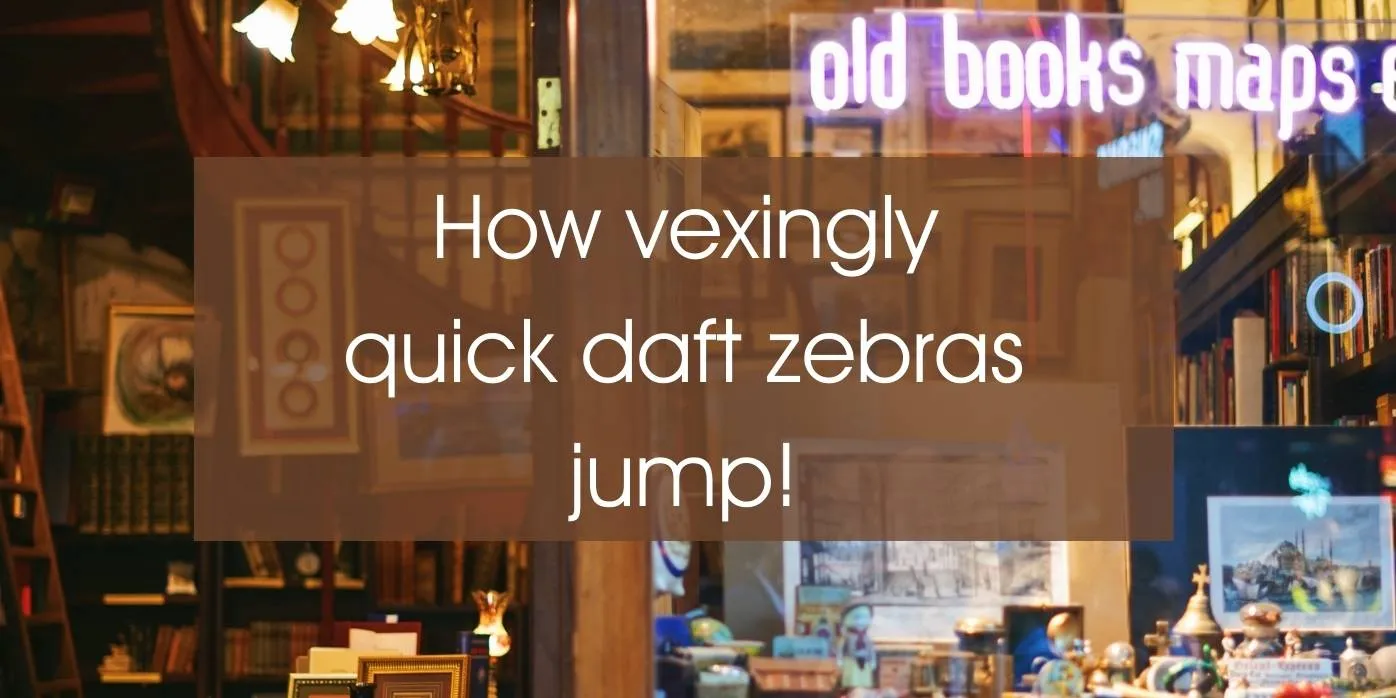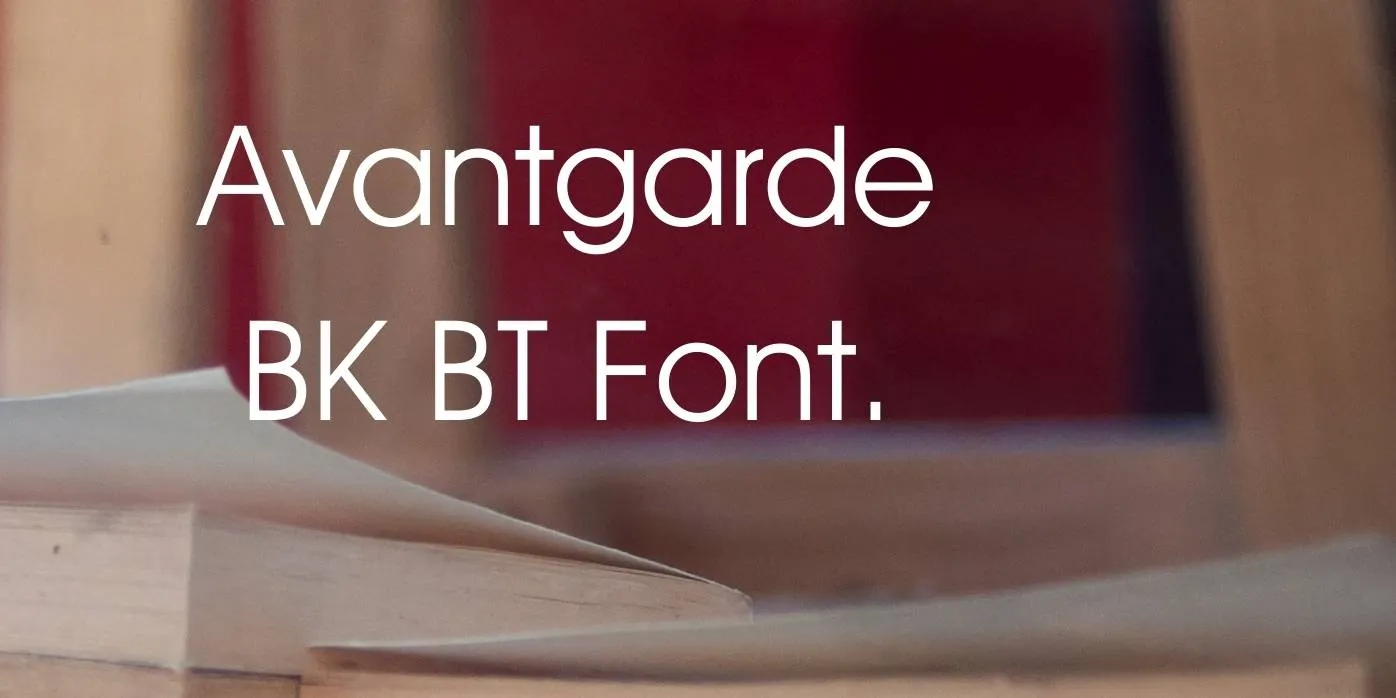
Avantgarde Bk BT Font
Today we are going to introduce Avantgarde Bk BT Font. This typeface belongs to the Sans Serif typeface. And it was created by Herb Lubalin and Tom Carnase in 1970. This classic font is a sans serif typeface with various weights and styles.
The font family includes Book, Medium, Demi, Bold, and Extra Bold. There are also oblique versions of each style. The font was designed for display and headlines, so it is perfect for large text. The letters have a strong emphasis on the vertical lines, which gives them a modern look.
This typeface has clean textures and shapes. The Avantgarde typeface is still very popular today. It is used by many designers all over the world. Its tool generator is best for a lot of design works.